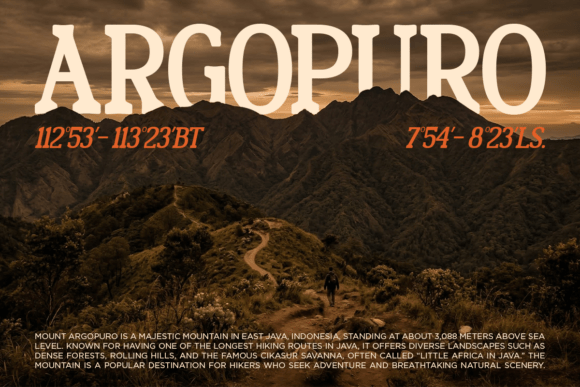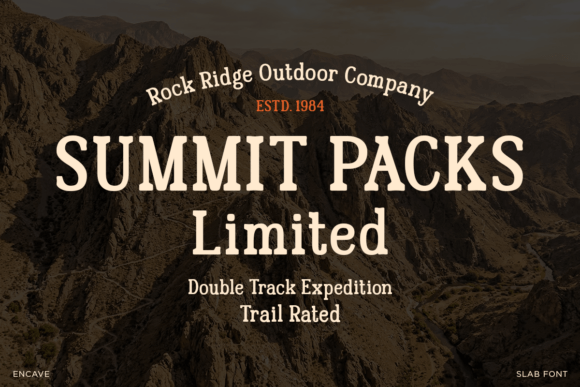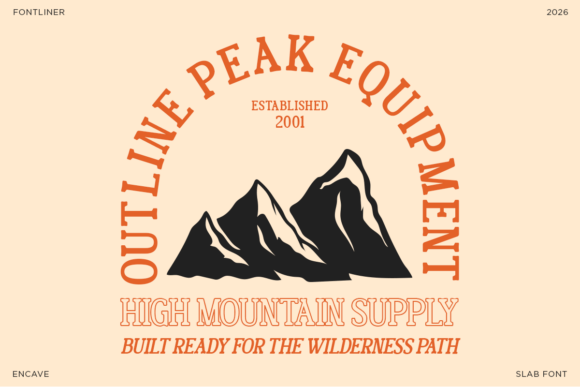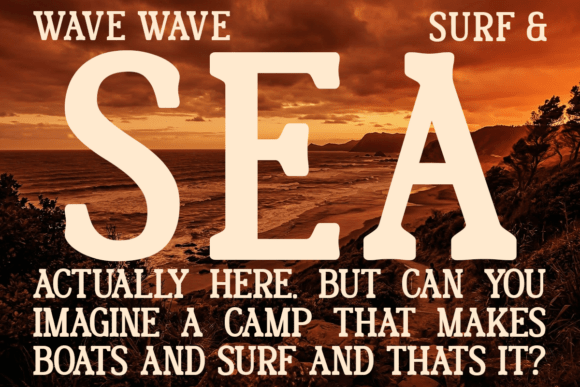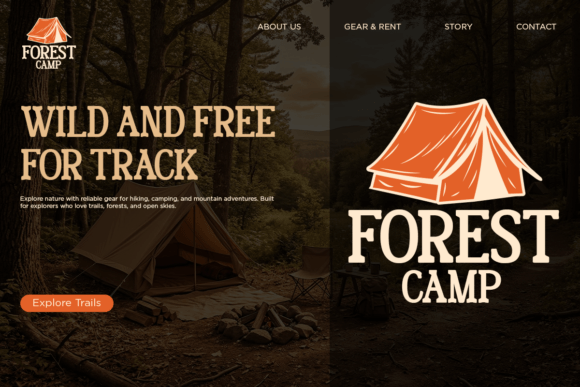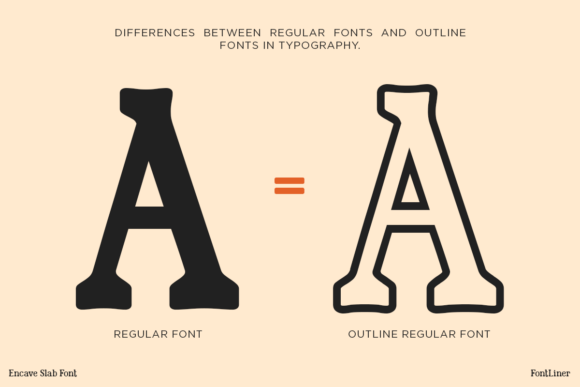
The Perfect Font for Making a Statement
You’ve spent hours perfecting the layout, pouring over color palettes, and agonizing over every detail. And then, it all comes down to the font – the one element that can make or break your design. For those moments when you need a typeface that exudes confidence and rugged charm, look no further than the Encave Font.
This bold slab serif typeface is designed to cut through the noise and leave a lasting impression. With its modern structure and masculine tone, the Encave Font is the perfect choice for branding, posters, and packaging that demands attention. Whether you’re creating outdoor-themed visuals or bold modern identities, this versatile font adapts effortlessly to your creative vision.
Encave Font Key Features
- Unique Characteristics: Encave Font features a unique blend of modern and elegant design elements, making it suitable for a wide range of applications, including branding, advertising, and editorial content.
Encave Font Review
As a designer, I was excited to dive into the world of Encave Font. Here’s my honest take on this font:
- Unique Character Shapes: Encave Font brings a fresh twist to classic letterforms, making it perfect for designers looking to add some personality to their work.
- Highly Versatile: This font is suitable for a wide range of applications, from branding and advertising to editorial and digital media.
- Stylish and Refined: Encave Font exudes a sense of sophistication and elegance, making it an excellent choice for high-end projects.
- Limited Font Weights: Encave Font offers a limited range of font weights, which might make it less versatile for certain design applications.
- No Oblique Version: Unfortunately, Encave Font doesn’t come with an oblique version, which can be a limitation for designers who prefer to use slanted text.
Encave Font is a solid choice for designers looking to add some flair to their work. While it may have some limitations, its unique character shapes and high level of versatility make it a great addition to any design library. With some additional font weights and an oblique version, Encave Font could truly shine. As it stands, it’s a worthy investment for designers seeking a stylish and refined font.
Tip: Use Encave Font for headings and titles to add a touch of elegance to your designs.
Tip: Use Encave Font for body text to create a consistent and cohesive design.
Tip: Use Encave Font for headings and titles to add a touch of professionalism to your presentations and documents.
Encave Font is ideal for:
1. Branding and logos
2. Marketing materials (brochures, flyers, etc.)
3. Web design and development
4. Print materials (business cards, letterheads, etc.)
5. Digital publications (e-books, magazines, etc.)
Alternatives to Encave Font
Ostrich Sans
Ostrich Sans is a modern sans-serif font that is ideal for use in digital media, such as websites and mobile applications. It is highly legible and has a clean, minimalist design that makes it perfect for body text. Compared to Encave Font, Ostrich Sans has a more geometric shape and is more suitable for digital use.
Playfair Display is a luxurious serif font that is perfect for use in high-end branding and design projects. It has a classic, elegant design that is reminiscent of traditional typography. Compared to Encave Font, Playfair Display has a more formal and sophisticated look that is suitable for use in corporate and luxury brands.